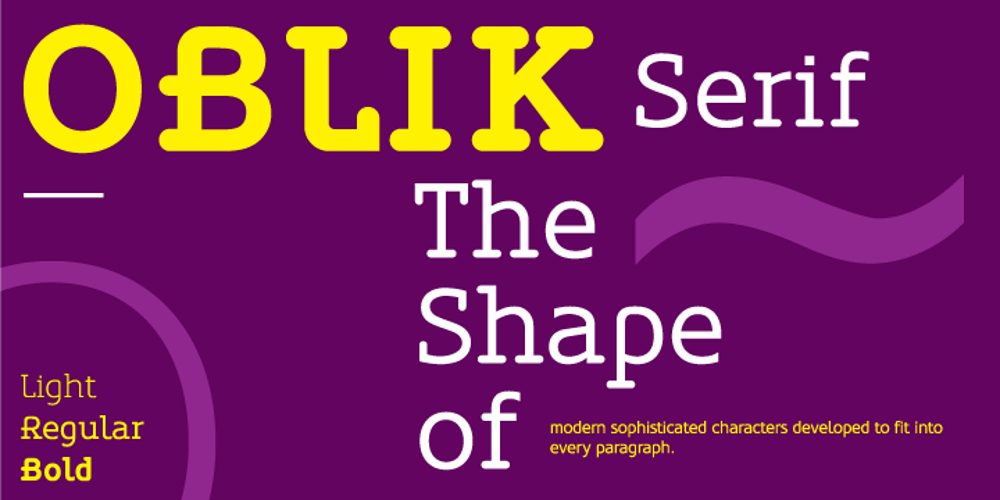
Oblik Serif
Oblik Serif font
Oblik Serif Font Family was designed by Slobodan Jelesijevic and published by Tour De Force. Oblik Serif contains 3 styles and family package options. Like Refused said in their song “The Shape of new Punk to come”, Oblik could be “The Shape of new Fonts to come”, we present you our uprising star – Oblik – that could shine in your monitors. Modern family, stylish and secure, with its own personality (it’s photogenic, too), available for all kind of use, even you’re an doctor or policeman or butcher or truck driver or maybe rock star, this font will rock your world.